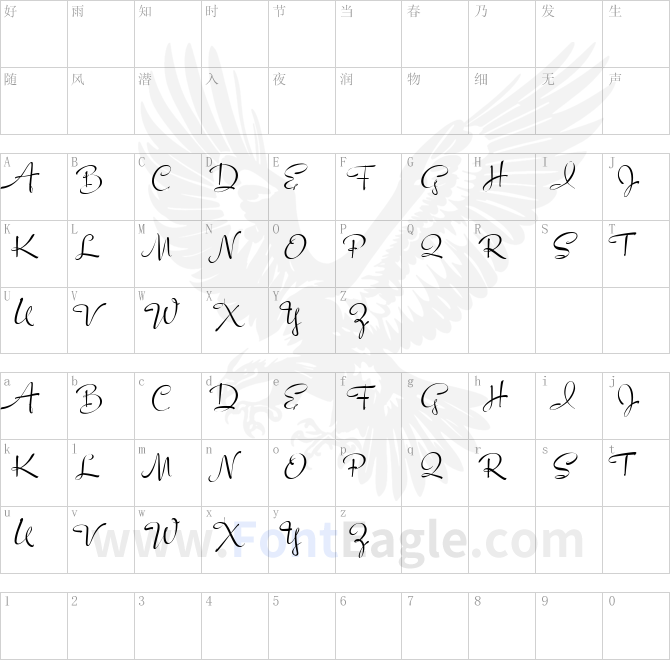
- Font Copyright:Capital letters originally named “Individual Capitals” taken from: The ABC of Lettering by J.I. Biegeleisen. Harper & Row Publishers NY 1965. ISDN 65-14683. Most lower cases created based on the words: from, the and Up by typographer Carl Holmes.